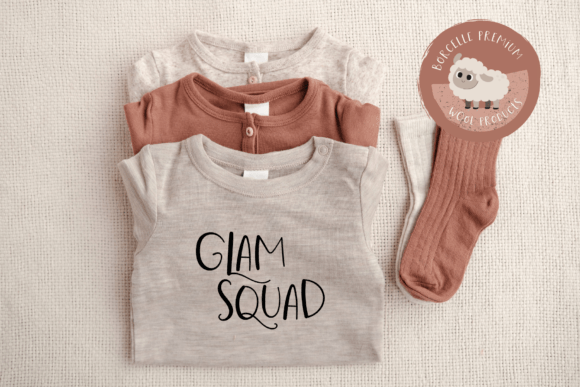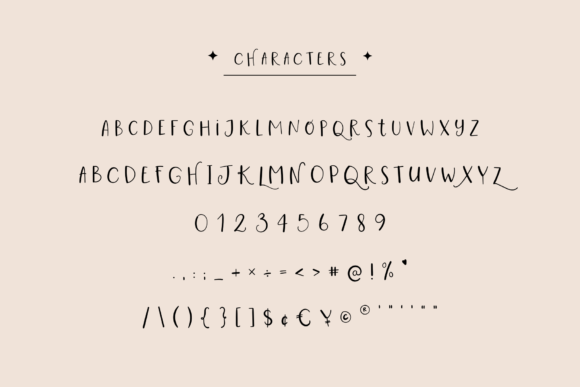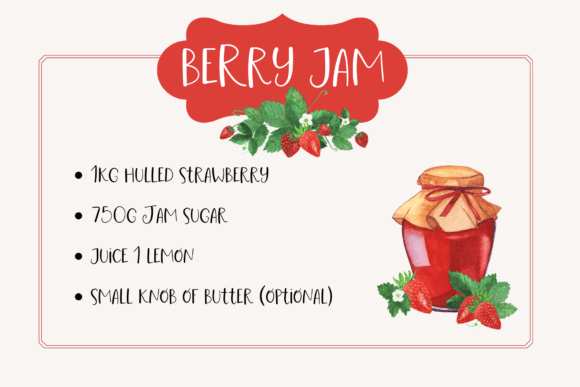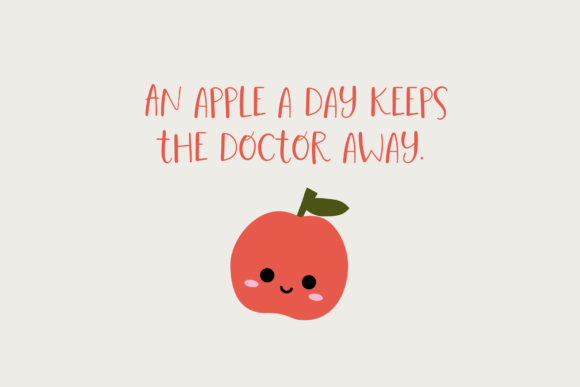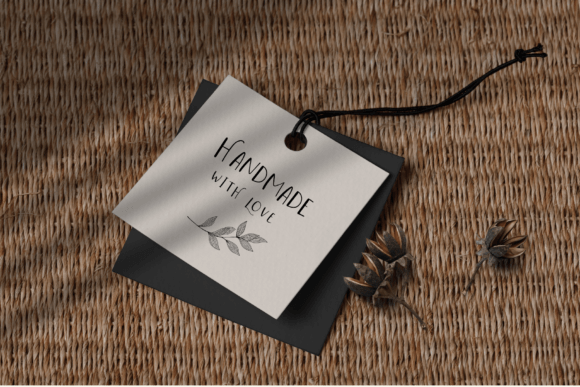
Wonderland Font
About Wonderland Font
Use Wonderland to create super cute logos, branding, notebooks, journals, labels, stickers, blogs, quotes, greeting cards, tea towels, apparel, pillows, mugs, toys, posters, baby clothing, picture books and so much more! Basically, anything that requires fun and happy looks! ????